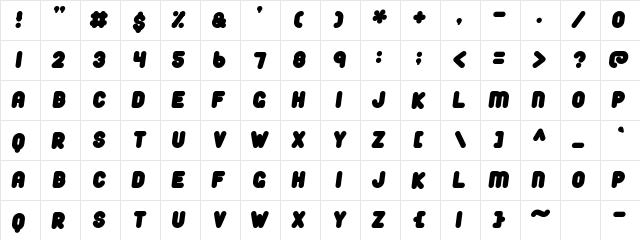
Time For Salad Regular
Design Context for Time For Salad Typeface
Time For Salad is a composed and adaptable typeface that performs quietly and consistently across a wide range of design contexts.